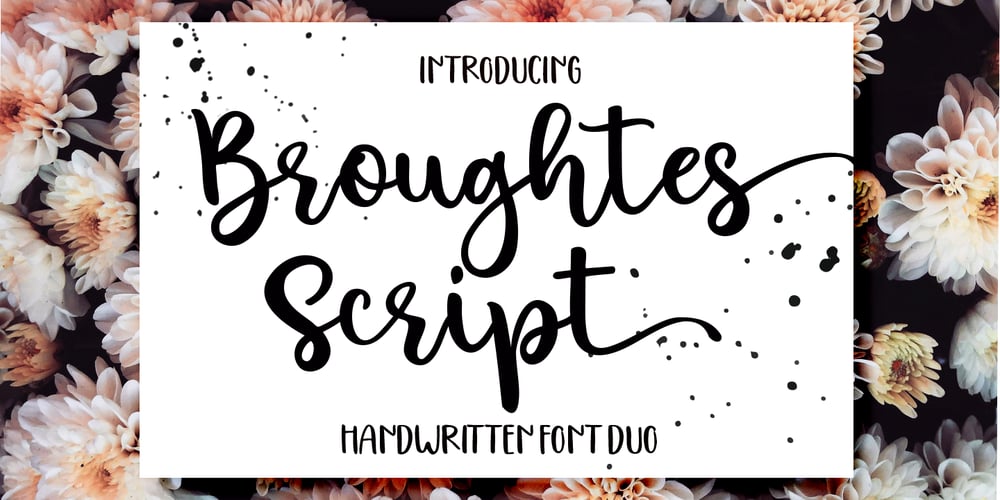
Broughtes Font Family was designed by Nasrullah and published by Sulthan Studio. Broughtes contains 2 styles and family package options. Broughtes is a beautiful, hand-drawn font duo. Script and sans that create a casual, yet stylish combination. This font would be suitable for logos, branding projects, homeware designs, product packaging, mugs, quotes, posters, shopping bags, logos, t-shirts, book covers, business cards, invitation cards, congratulations. cards, and all your other beautiful projects. Contains a full two set of lowercase and uppercase letters, punctuation, numbers, and multilingual support. This font also includes Ligatures and Swashes